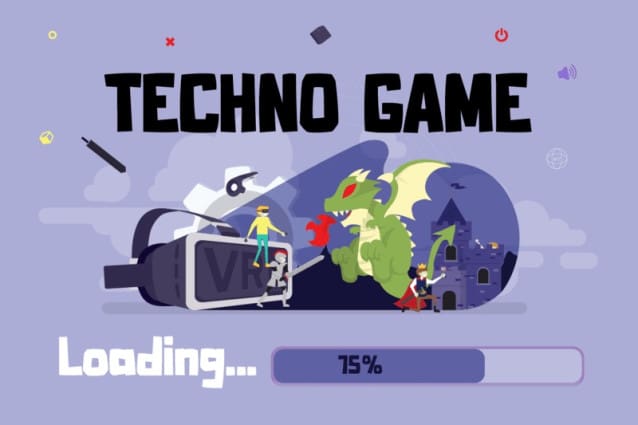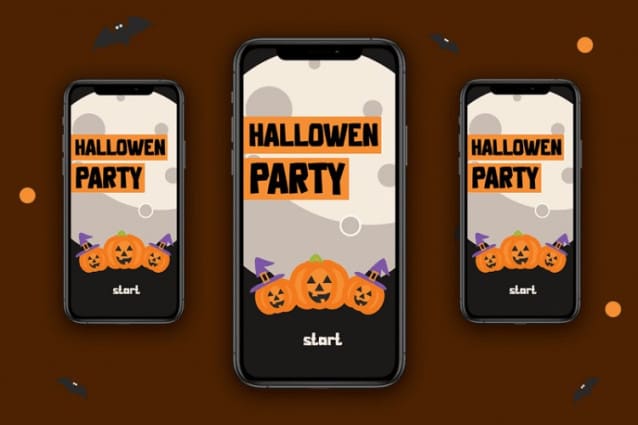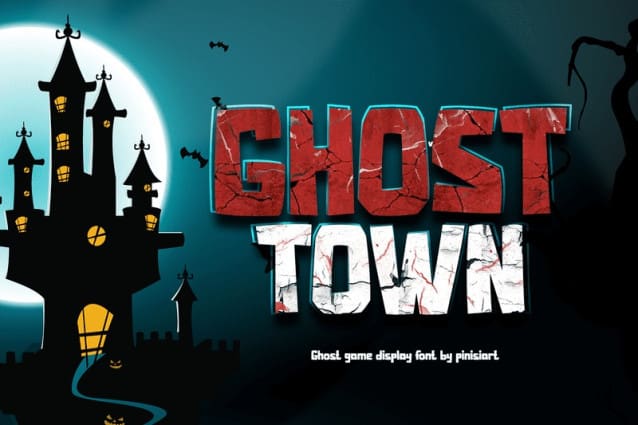
Ghost Town Font
Ghost Town Font – the ultimate Display Font for gamers and horror movie enthusiasts alike! This Sans Serif Font is the perfect choice for anyone looking to add a spine-chilling touch to their project. Designed with the spooky and eerie aesthetic in mind, this Scary Font will give your project a truly haunting atmosphere.
With its bold, dramatic appearance, Ghost Town is a standout choice for titles, headers, and logos. The Gaming Font is perfect for video game enthusiasts and YouTubers who want to add a little horror flavor to their content. It’s also an excellent Movie Font for film posters, DVD covers, and other promotional materials.
But that’s not all! Ghost Town comes with plenty of nature foliage and floral, organic and natural style of font, giving your project an organic and natural feel that perfectly complements the horror theme. This font is perfect for Halloween, horror movies, and any project that needs a touch of creepy ambiance.
So if you’re looking for a font that will give your project a haunting, ghostly vibe, look no further than Ghost Town. Try it today and experience the spine-chilling atmosphere that only this Scary Font can provide!